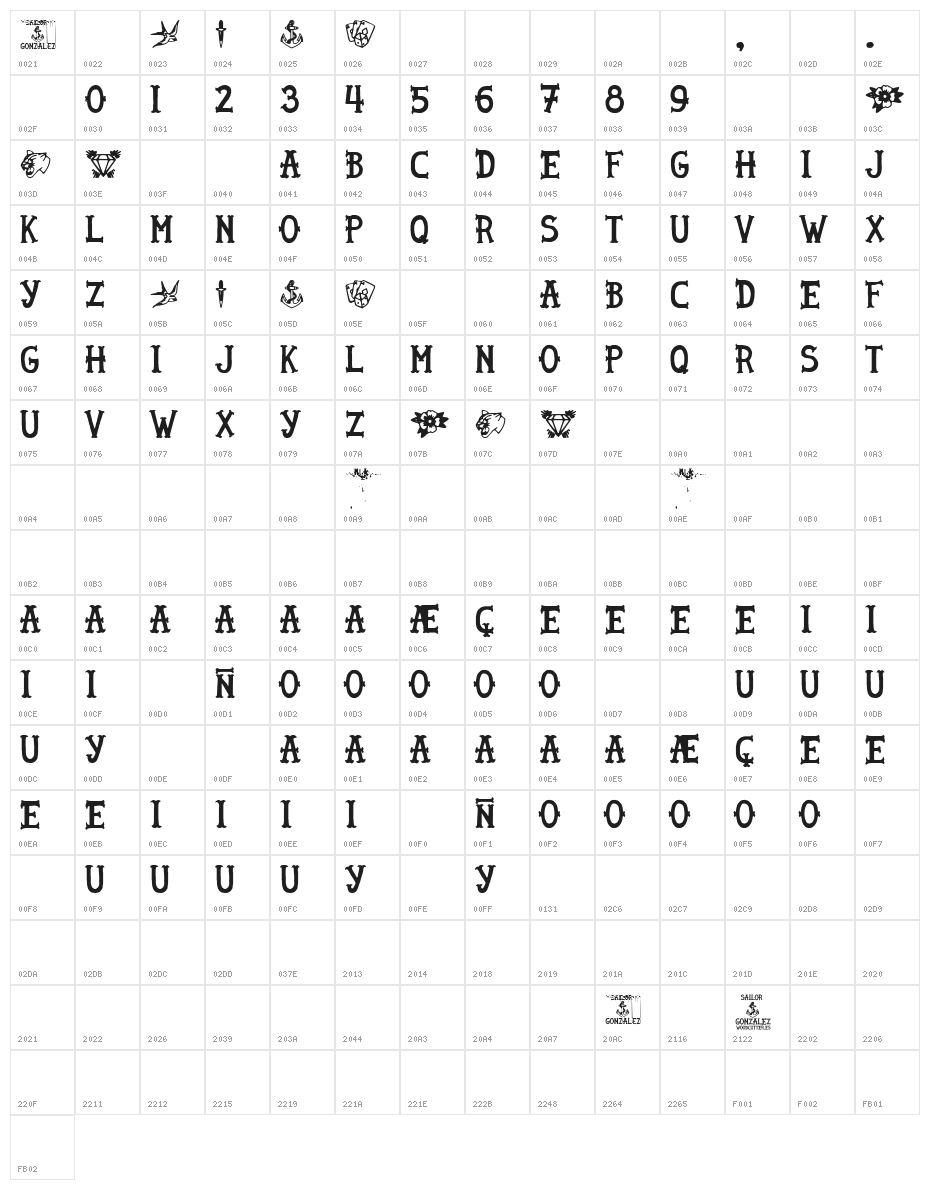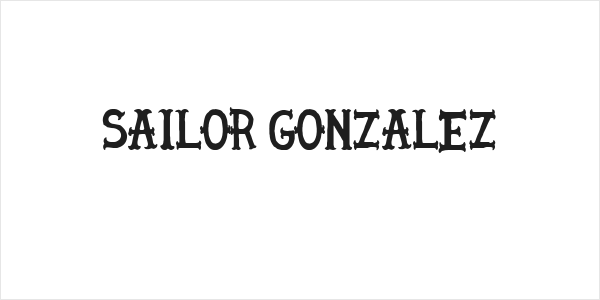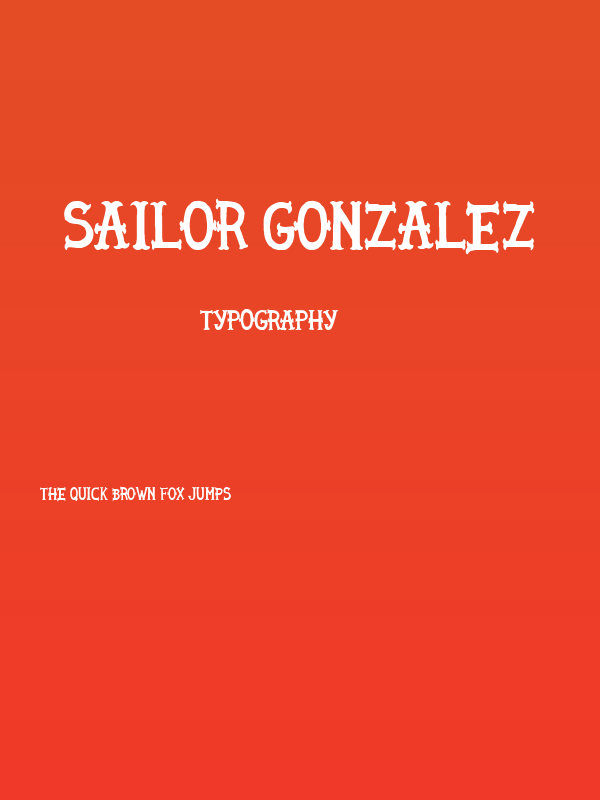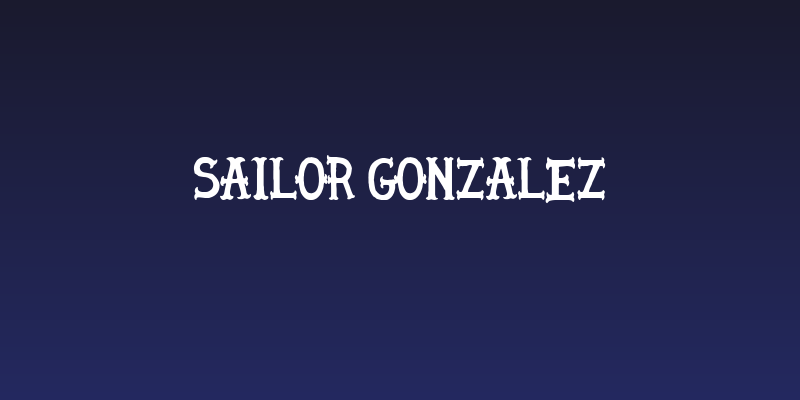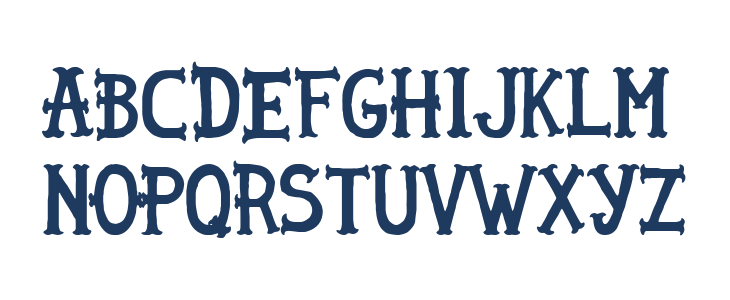
Sailor Gonzalez Font
Sailor Gonzalez Description
This font features a bold and decorative style with a nautical theme. The characters are designed with unique, intricate details that resemble traditional tattoo art, giving it a vintage and adventurous feel. The uppercase letters have a strong presence, with sharp serifs and a slightly rugged texture that adds to the maritime aesthetic. The lowercase letters maintain the same stylistic elements, ensuring consistency throughout the typeface. Numbers are equally bold and decorative, making them stand out. Special characters, including symbols like anchors and swallows, enhance the thematic cohesion, making this font ideal for projects that require a touch of the sea or a retro vibe.